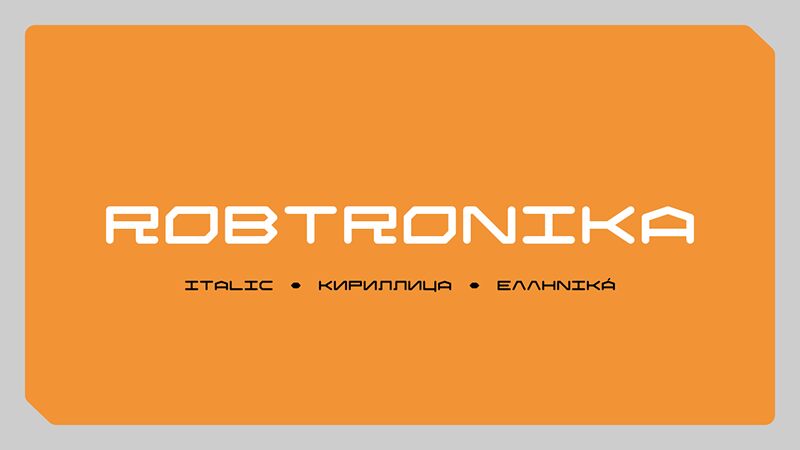
Robtronika is a striking display font crafted by GGBotNet, radiating a captivating futuristic essence. Its bold, expanded forms boldly command attention with an adventurous spirit and modern flair. The design juxtaposes sharp angles with smooth curves, creating a unique visual rhythm that feels both dynamic and engaging. This distinctive style makes Robtronika ideal for technology branding, gaming graphics, and sci-fi themed projects.
Incorporating this font into your designs adds an element of excitement and innovation, effortlessly drawing the viewer’s eye. Whether utilized in headings or promotional materials, Robtronika's unique characteristics ensure that your message stands out in a vibrant and impactful manner. Experience the allure of this font as it transforms ordinary text into an extraordinary visual statement.